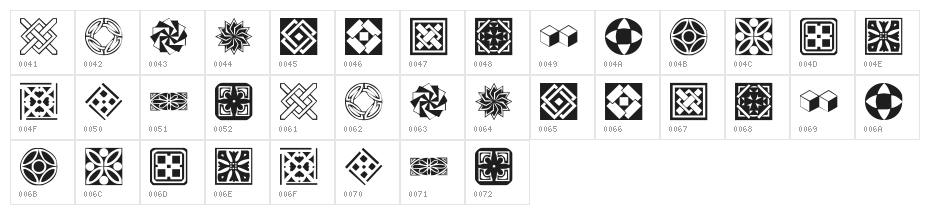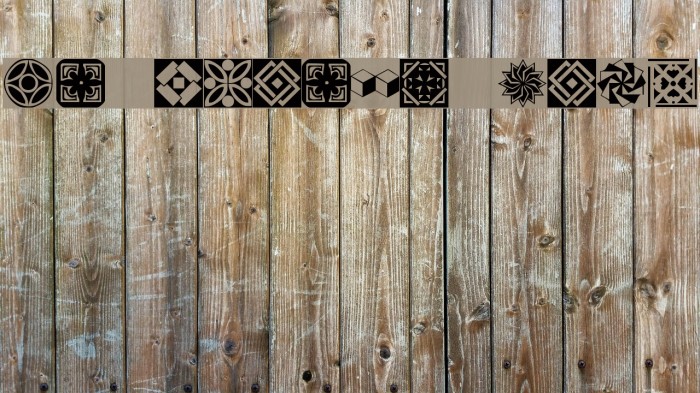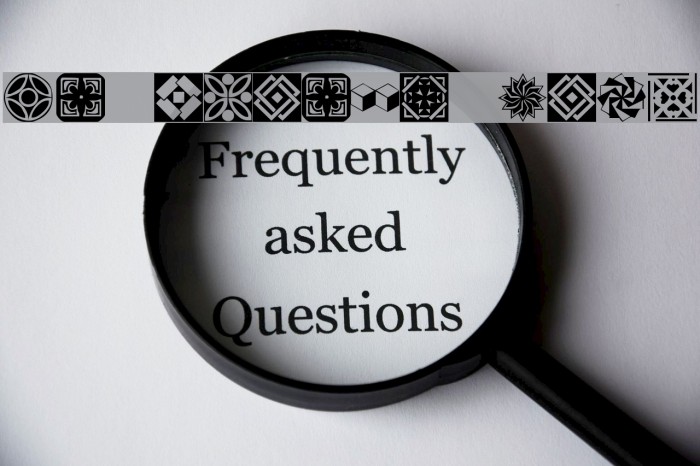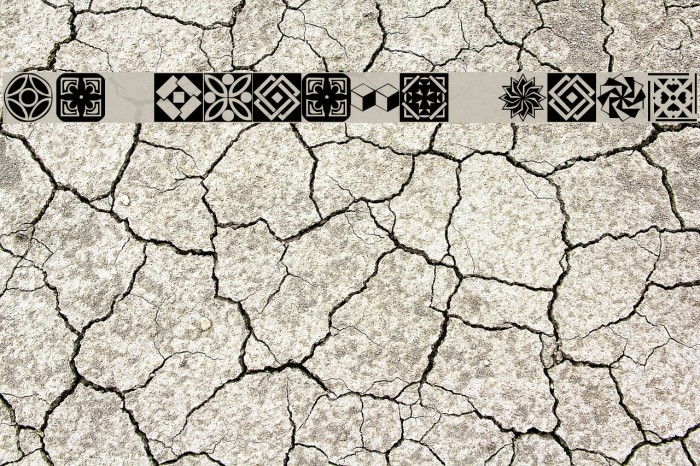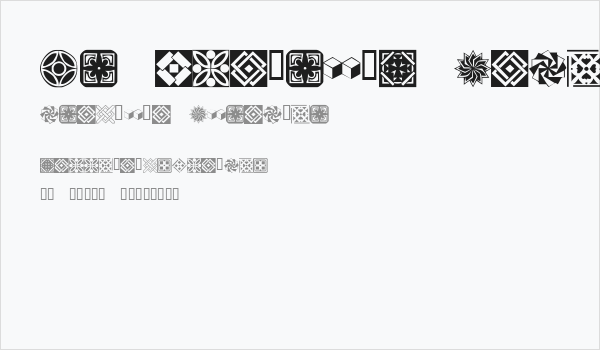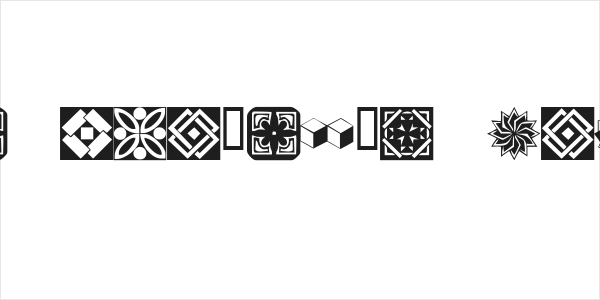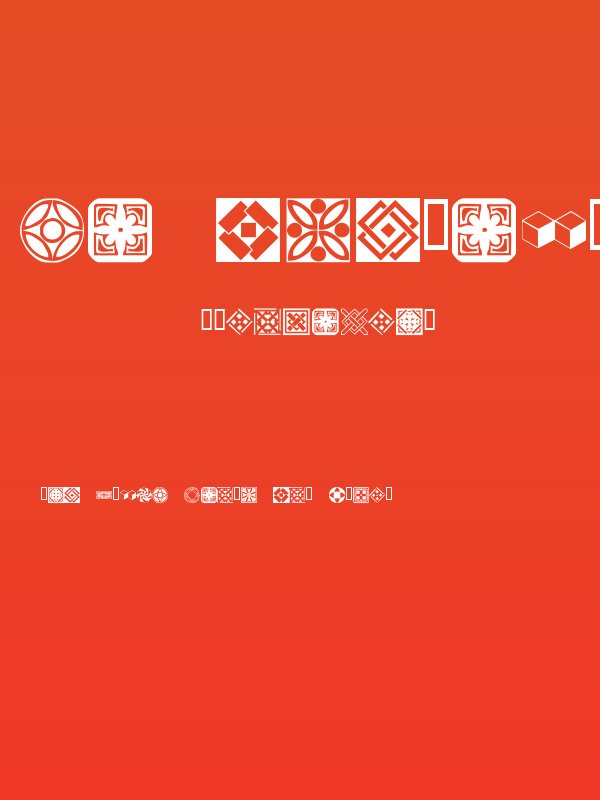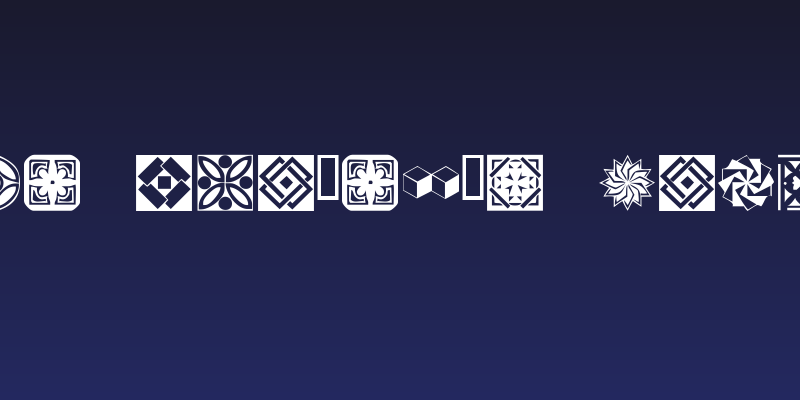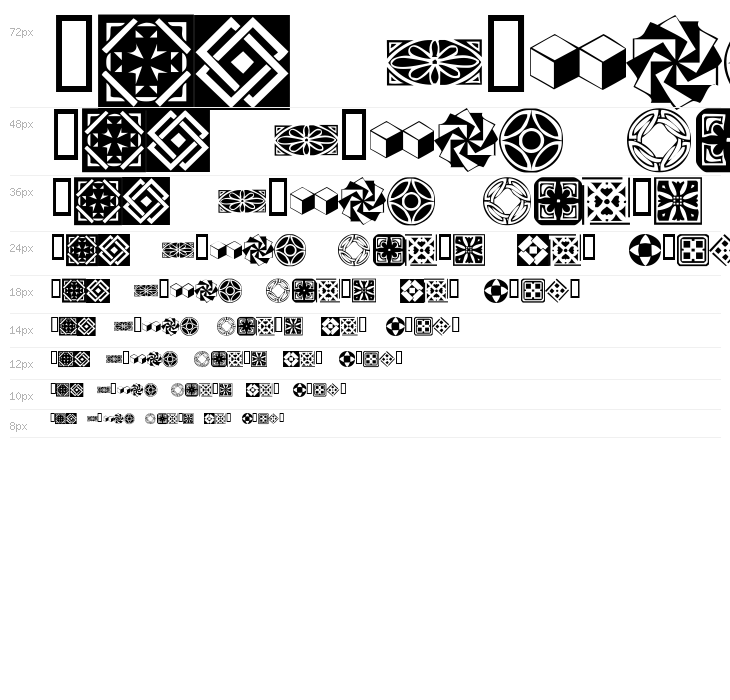
KR Fleurish Deco Font
KR Fleurish Deco Description
A decorative font composed entirely of intricate geometric and floral motifs, each character represented by a unique ornamental design. The glyphs are bold, high-contrast, and primarily square or circular in shape, making them suitable for borders, dividers, or decorative accents rather than traditional text.
| Overall Style | Decorative, Vintage |
| Use Case | Decorative elements, Borders, Accents |
| Proposed Projects | Invitations, decorative borders, scrapbooking, certificates, artistic dividers, and graphic embellishments. |